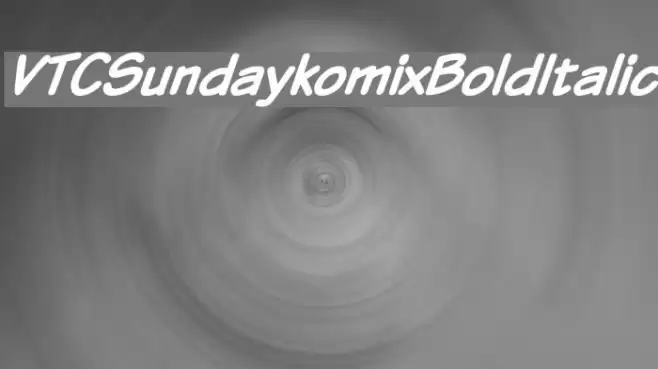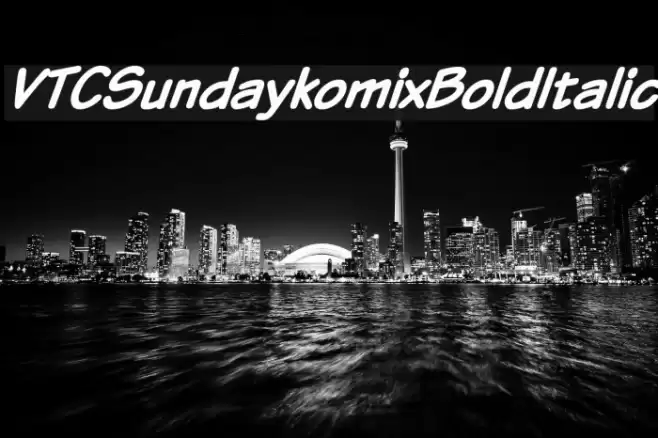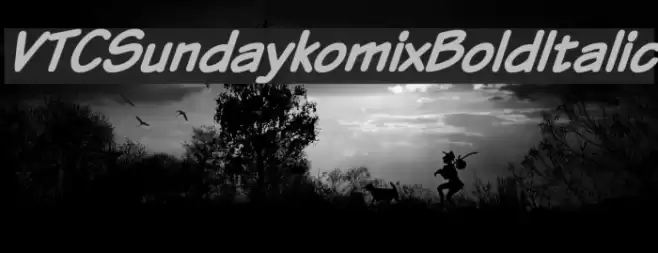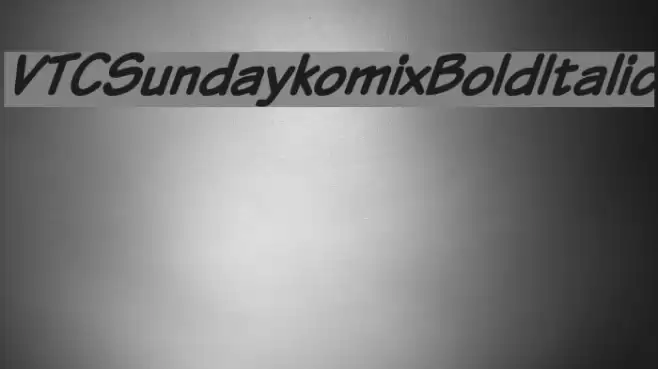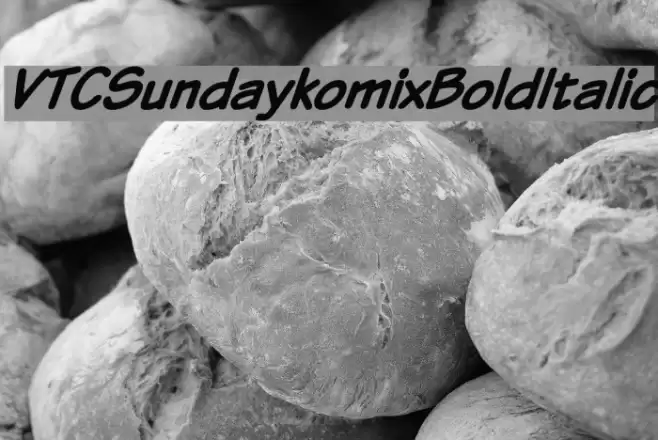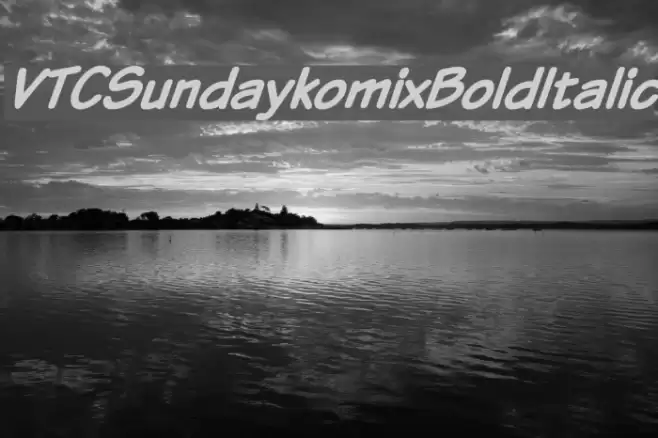
VTCSundaykomixBoldItalic Font
VTCSundaykomixBoldItalic Description
This playful and bold font features a handwritten style with a strong, dynamic presence. The characters are slightly slanted, giving an italicized appearance that adds to its energetic and informal vibe. The strokes are thick and rounded, providing a sense of friendliness and approachability. The font maintains a consistent weight throughout, ensuring readability while conveying a sense of fun and creativity. Its unique style makes it ideal for projects that require a touch of whimsy and personality.
A bold, italicized handwritten font with a playful and dynamic style from Handwritten fonts.
- Proposed Projects: Perfect for comic books, children's books, playful branding, and creative posters.
- Overall Style: Playful